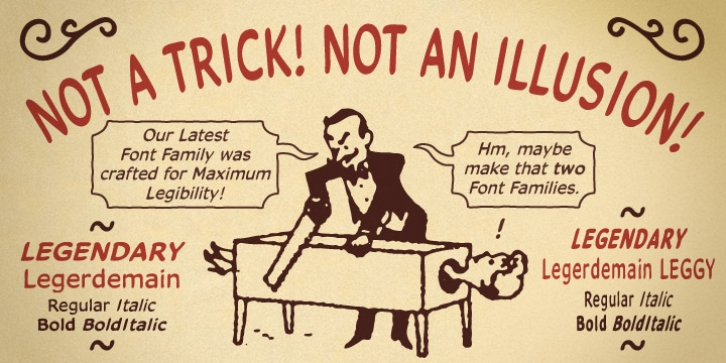
Are you watching closely? We know what you're looking for -- the secret. Comicraft’s magic formula, our Legendary Legerdemain. But you won't find it because of course, you're not really looking. You don't really want to work it out. You want to believe in the magic.
Every great Comicraft font consists of three parts. The first part is called “The Pledge”. Comicraft shows you an ordinary looking font: A through Z, nothing more than the letters of the alphabet, unaltered, normal. But of course... they aren't. The second part is called “The Turn”. Comicraft takes the ordinary letters of the alphabet and makes them look extraordinary. Now you are peering closely -- you convince yourself you're looking for the secret... even though you really don't want to know. You want to be fooled. And you are! But don't applaud yet. Because making something extraordinary isn't enough...
That’s why every Comicraft font has a third part, the hardest part, what we call “The Prestige”. That''s when we have to SELL the font. And that’s the real trick.